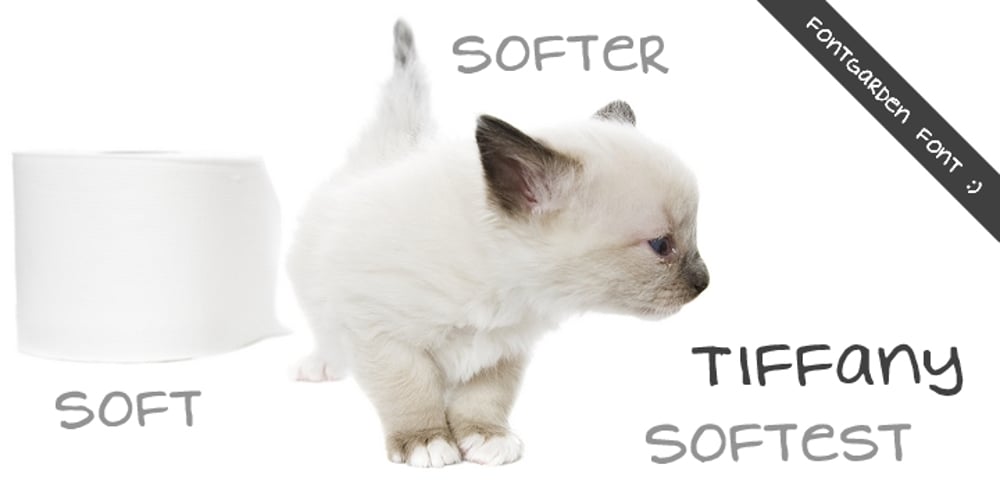
FG Tiffany
FG Tiffany font
FG Tiffany Font Family was designed by published by YOFF. FG Tiffany contains 1 styles and family package options. FG Tiffany is drawn by Tiffany and fonted by Font Garden. It is such a smooth all caps font – very useable.